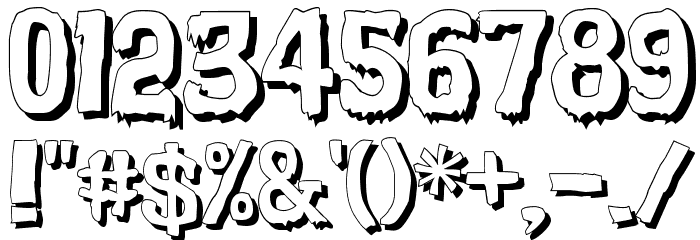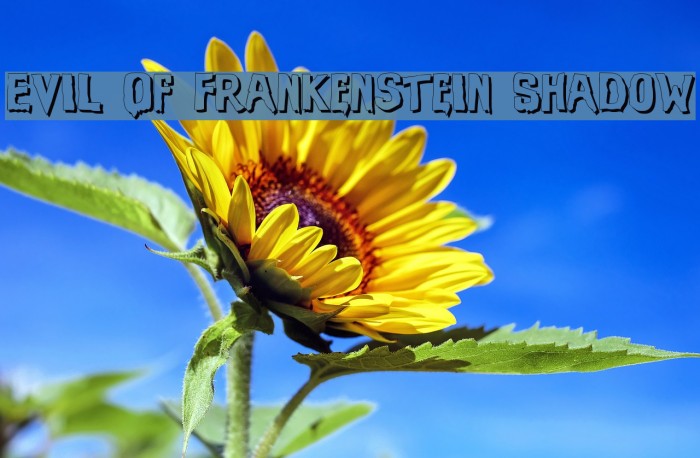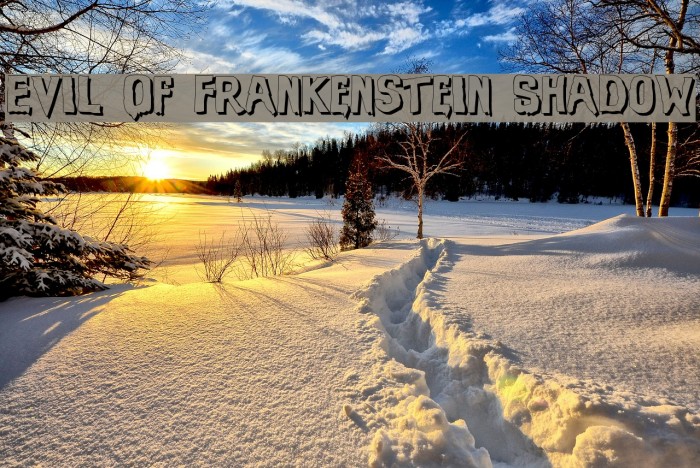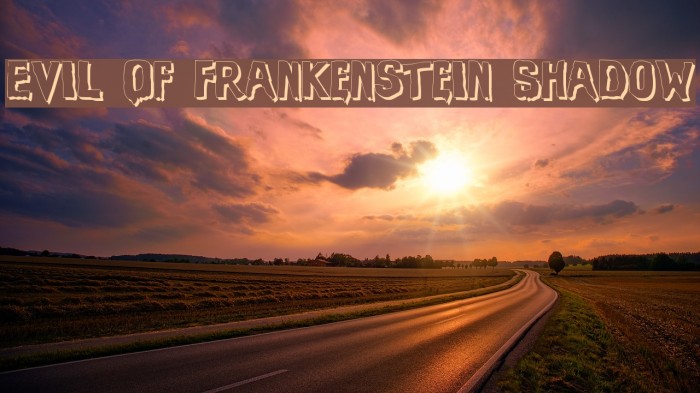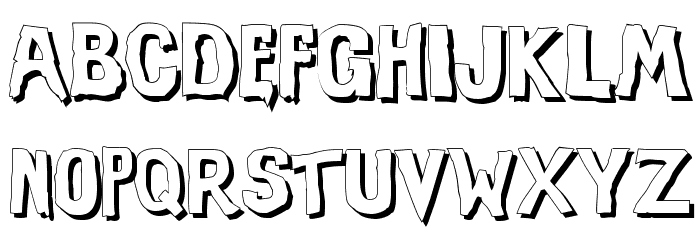
This font features a bold and dramatic style with a shadow effect that gives it a three-dimensional appearance. The characters have a jagged, uneven edge that adds a sense of horror or mystery, reminiscent of classic horror movie posters. The uppercase and lowercase letters maintain a consistent style, with the shadow creating a sense of depth. Numbers and special characters are included, following the same design principles, making the font versatile for various creative uses.
A bold, shadowed font with a jagged, horror-inspired style.
• Proposed Projects: Ideal for Halloween-themed projects, horror movie posters, spooky event invitations, and themed merchandise.